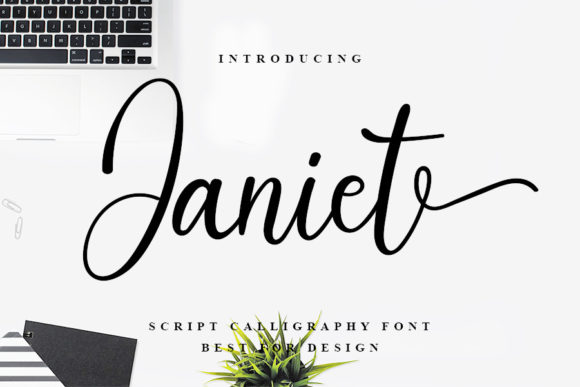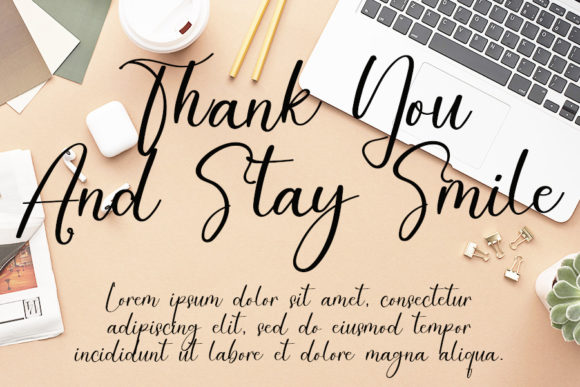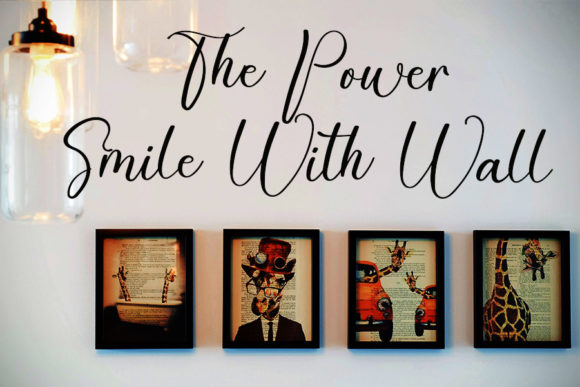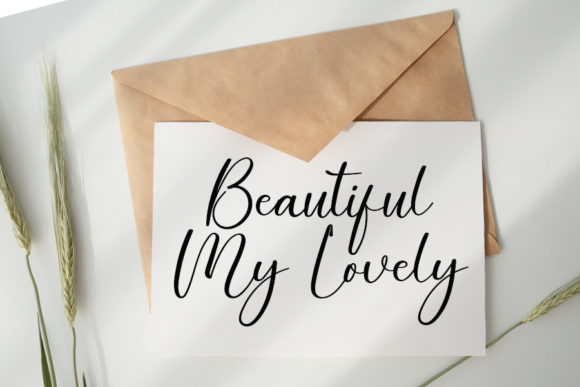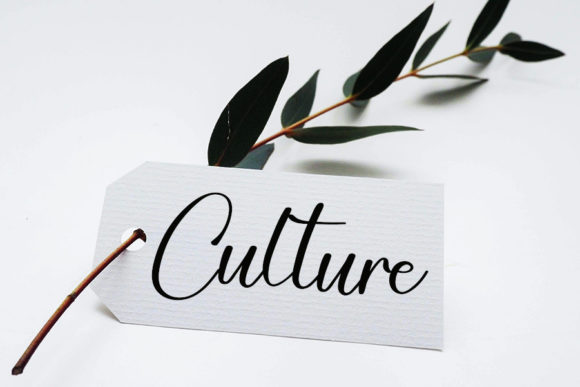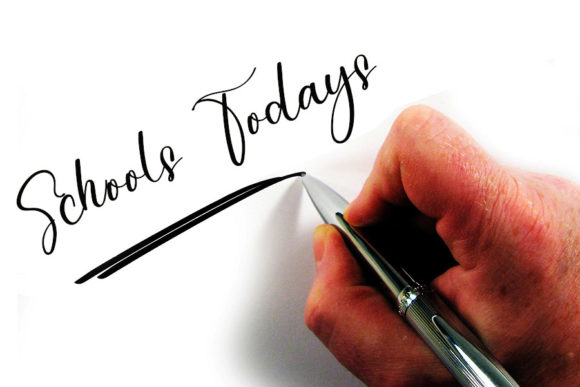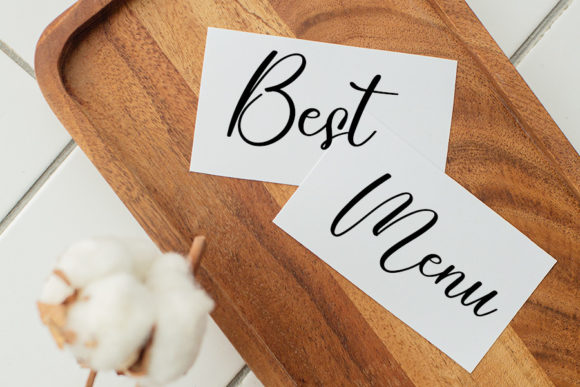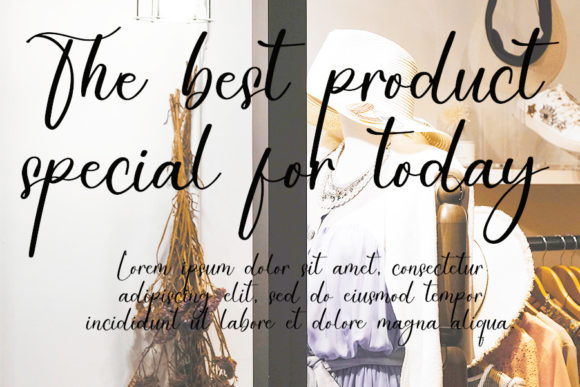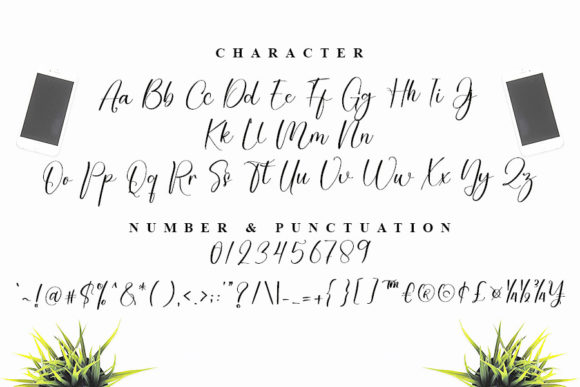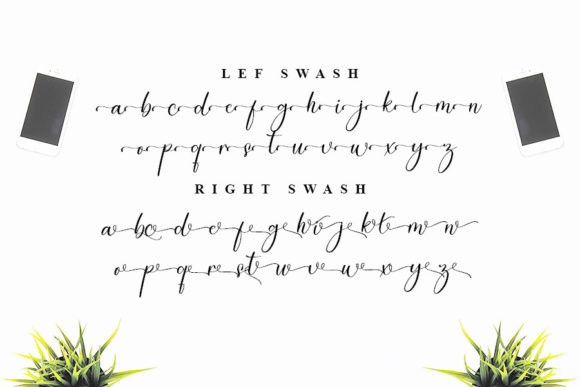
Janiet Font
About Janiet Font
Janiet stands as an exquisite and refined script font, showcasing a blend of beauty, class, and modern elegance. With its sophisticated aesthetic, this font becomes a versatile choice suitable for a myriad of applications, including logos, branding, invitations, stationery, wedding designs, social media posts, and beyond.
The classy and elegant appearance of Janiet adds a touch of charm to any project, elevating its visual appeal. The modern look of the font aligns seamlessly with contemporary design trends, making it a perfect fit for a wide range of creative endeavors. Its versatility allows it to shine across various platforms, from print materials to digital media.
One notable feature of Janiet is its PUA encoding, ensuring easy access to a wealth of amazing glyphs and ligatures. This encoding enhances the font’s functionality and provides users with the flexibility to explore and utilize a diverse set of characters. Whether you’re looking to create unique and customized designs or simply seeking to enhance the overall visual richness of your project, Janiet’s PUA encoding makes the process effortless.
The font’s adaptability and aesthetic appeal make it a valuable asset for designers and creatives seeking a script font that effortlessly combines classic elegance with a contemporary edge. Janiet becomes more than just a typeface; it transforms into a tool for artistic expression, allowing users to infuse their projects with a sense of sophistication and modern flair.
In conclusion, Janiet is a beautiful and refined script font that transcends traditional boundaries. Its classy, elegant, and modern attributes make it suitable for a wide range of design applications, and the added benefit of PUA encoding opens up a world of creative possibilities. Elevate your designs with the timeless charm and versatility of Janiet, making every project a showcase of style and elegance.